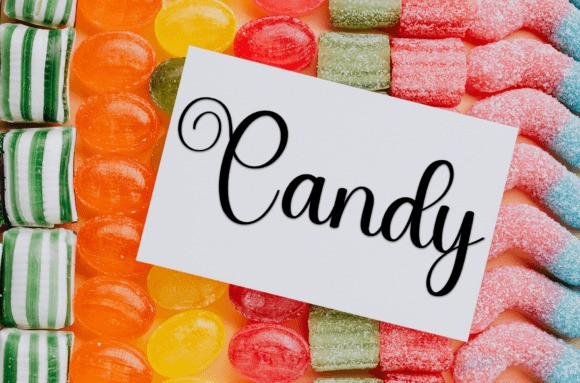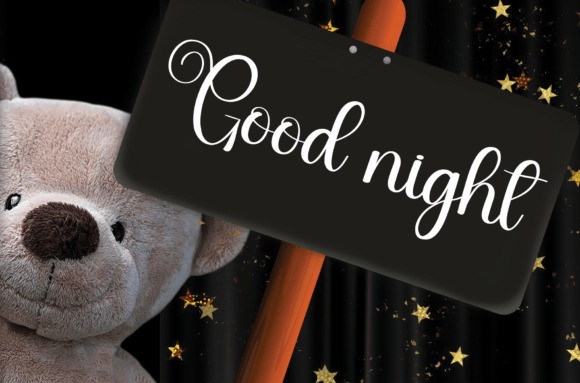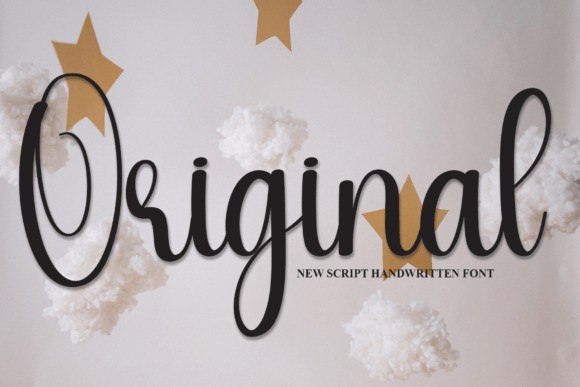
Original Script Font
Original Script Font is a sweet and friendly handwritten font. Creative and cute, this font is ideal for writing wedding invitations, cards, or any other design that might need a fun touch!